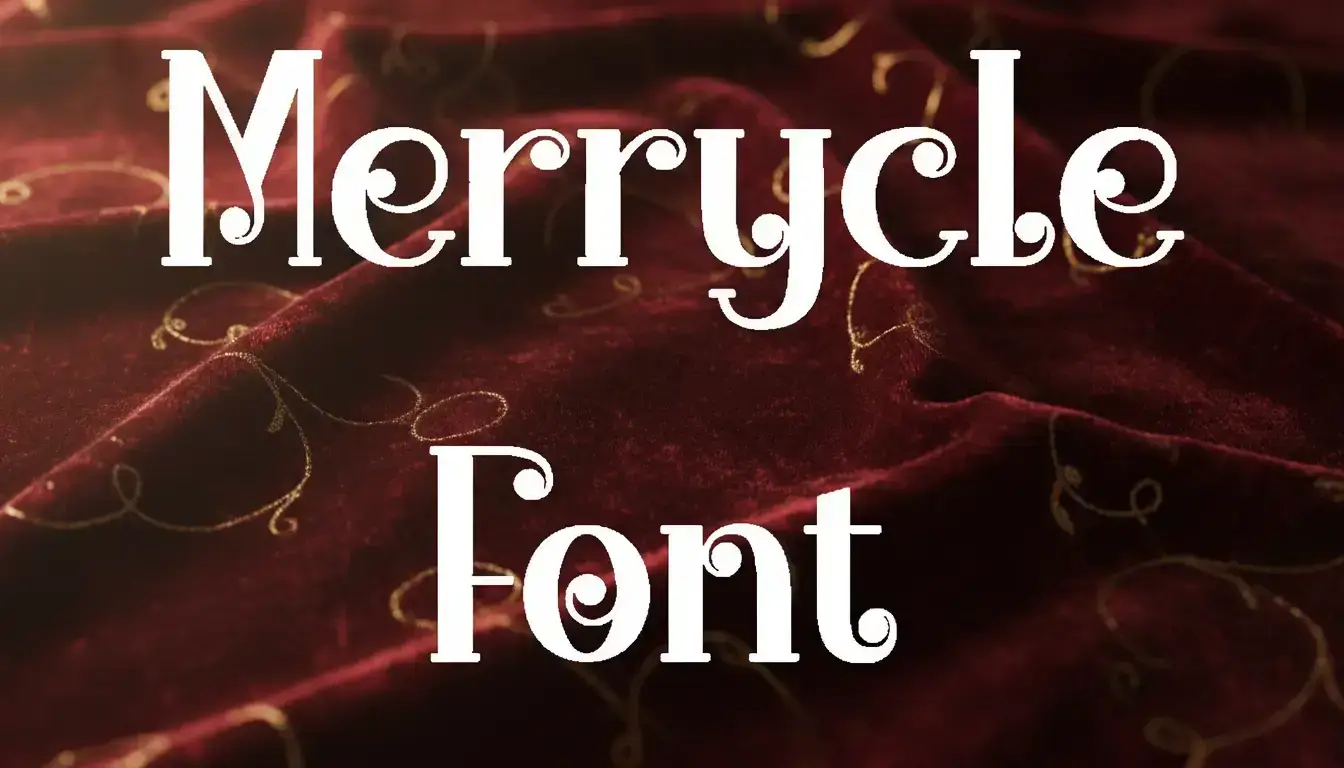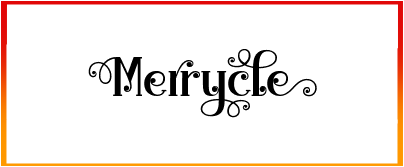
Merrycle Font
Merrycle
Merrycle is a fancy font designed by Jasman Nazara; Situjuh Nazara and published by 7NTypes. It's a decorative display font with plenty of personality, made to grab attention. It's a free download, and you can try it with your own text in the preview above first.
What You Can Type With Merrycle
You get every letter from A to Z in both cases and all the numbers from 0 to 9, which means Merrycle can handle full sentences, dates and prices. Everyday marks like &, !, ? and @ are there too. Thanks to its accented letters, it also works for Spanish, French, German, Portuguese and Italian, not just English.
Where Merrycle Works Best
Designers usually reach for fonts like Merrycle when they're making posters, logos and eye-catching headlines. Use it for one standout word or headline and let simpler fonts handle the rest.
Does Merrycle support accented letters?
Yes. Merrycle includes the accented letters needed for Spanish, French, German, Portuguese and Italian, so it works for more than just English.